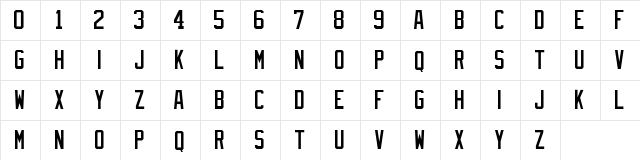
Complete NHL Vancouver Regular glyph index. Displaying only characters natively supported by NHL Vancouver Regular font.
NHL Vancouver is a composed and adaptable typeface that performs quietly and consistently across a wide range of design contexts.